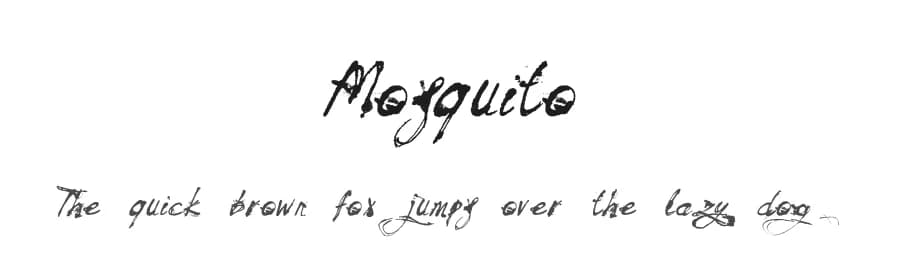
About Mosquito Font
Mosquito is a script & handwritten font designed by Piet. It includes 110 glyphs, a regular weight, TTF (TrueType) format, and 104 languages. Mosquito is free to download; check the license details on this page before commercial use. Script & handwritten fonts like Mosquito work best for wedding invitations, greeting cards, signatures, and elegant branding.
Mosquito Font is a script font that shines as a display or heading face. Pair it with a clean sans-serif or serif font for body text β the contrast creates a clear hierarchy while the two styles stay balanced and easy to read.
Mosquito Font
by Piet
Mosquito Font is a script handwritten typeface by Piet, ideal for logos, invitations, branding, and creative projects.